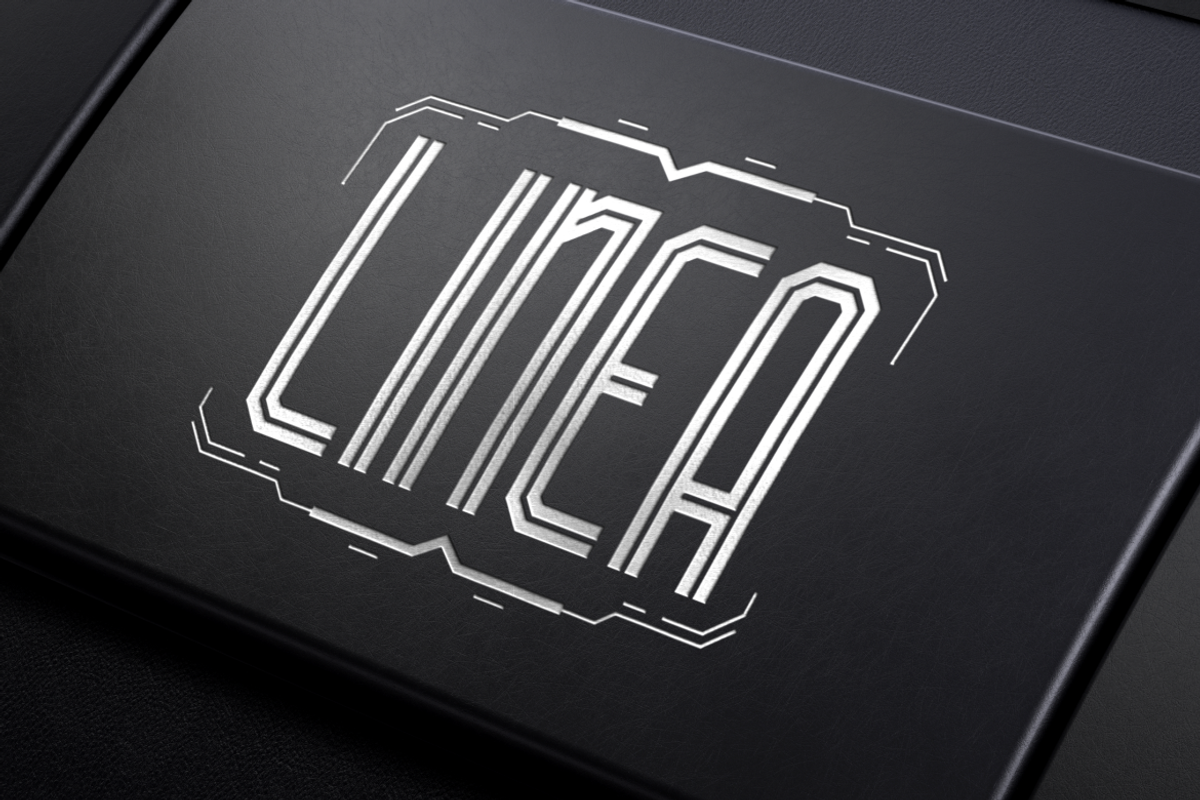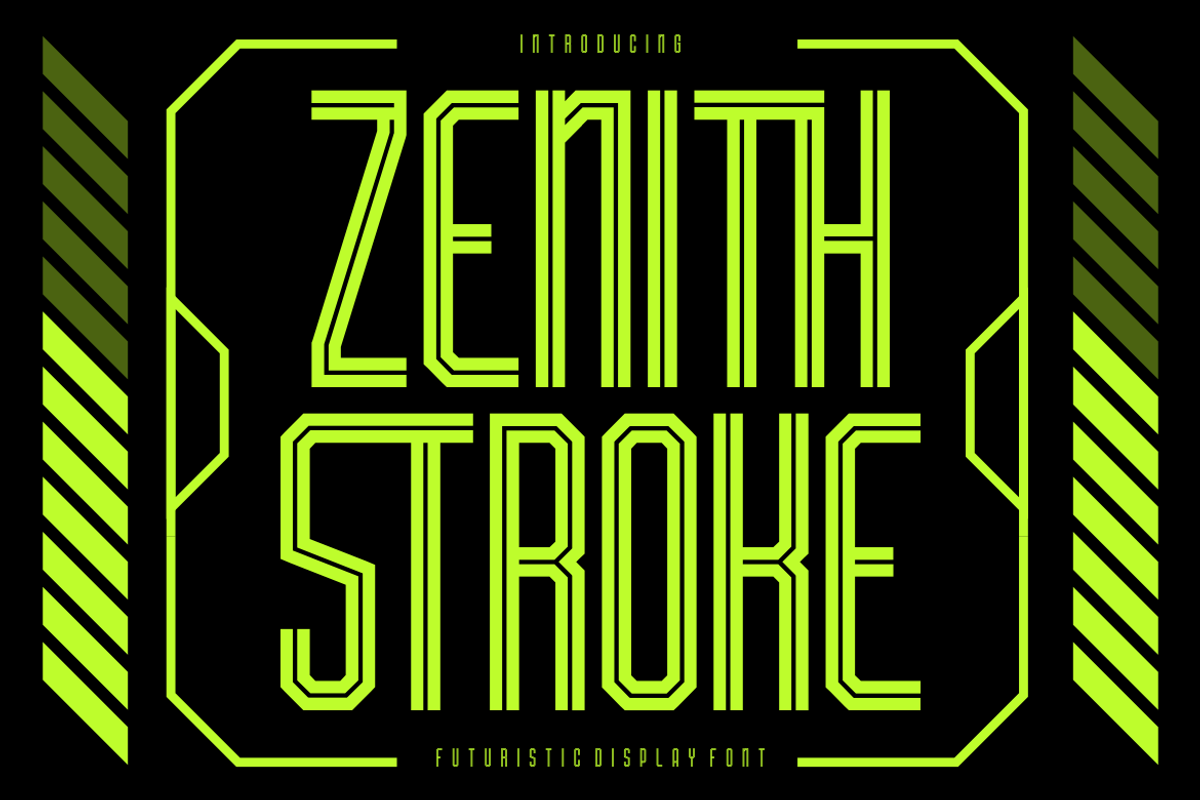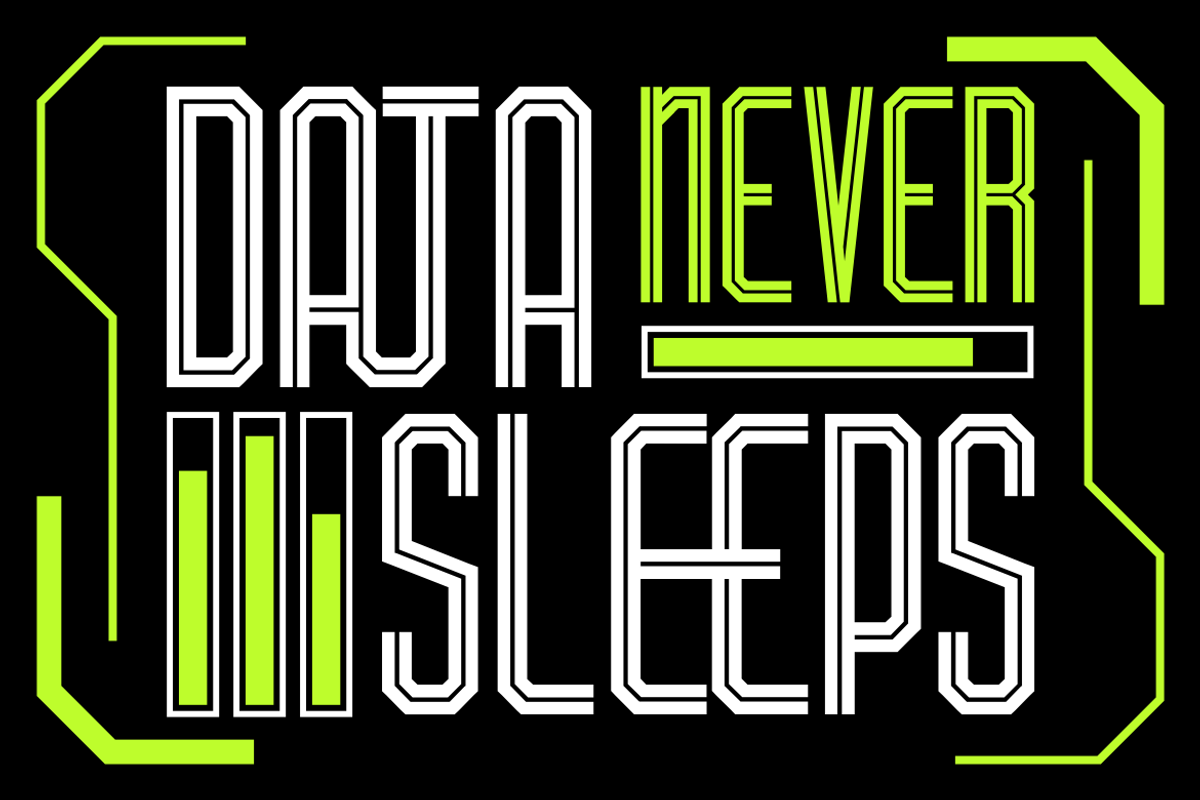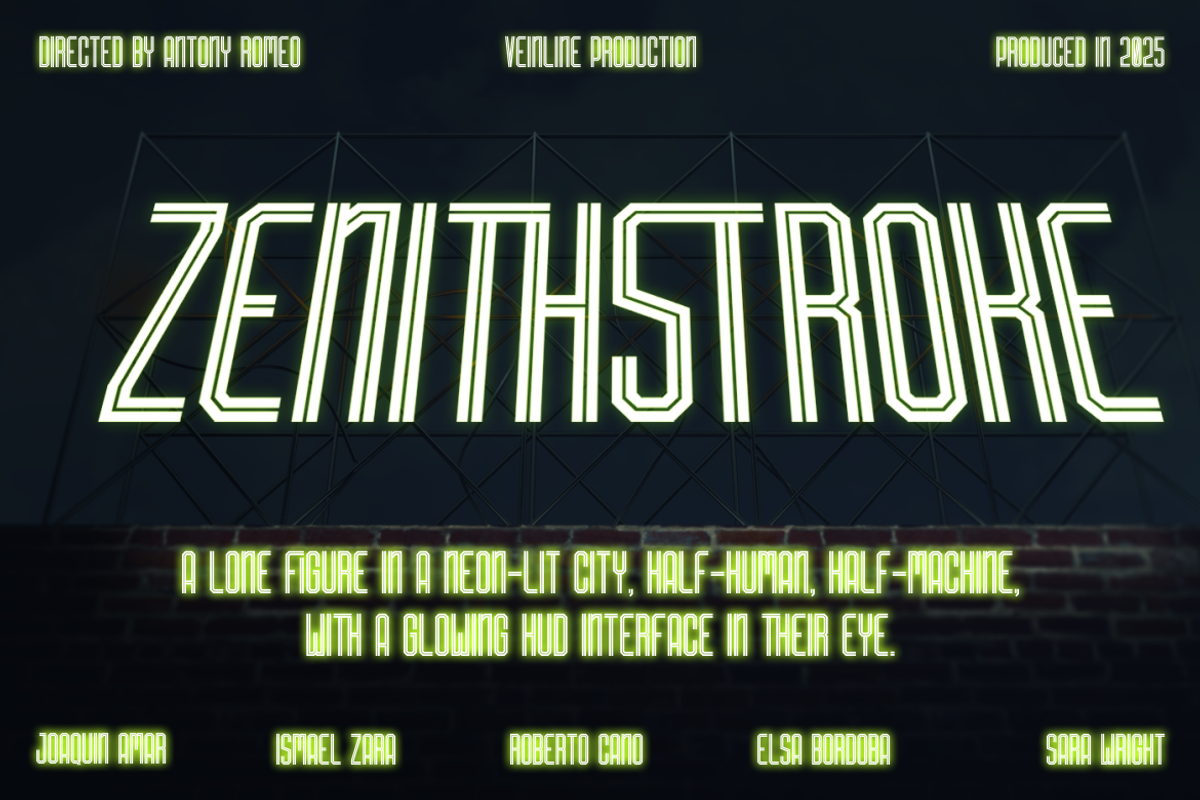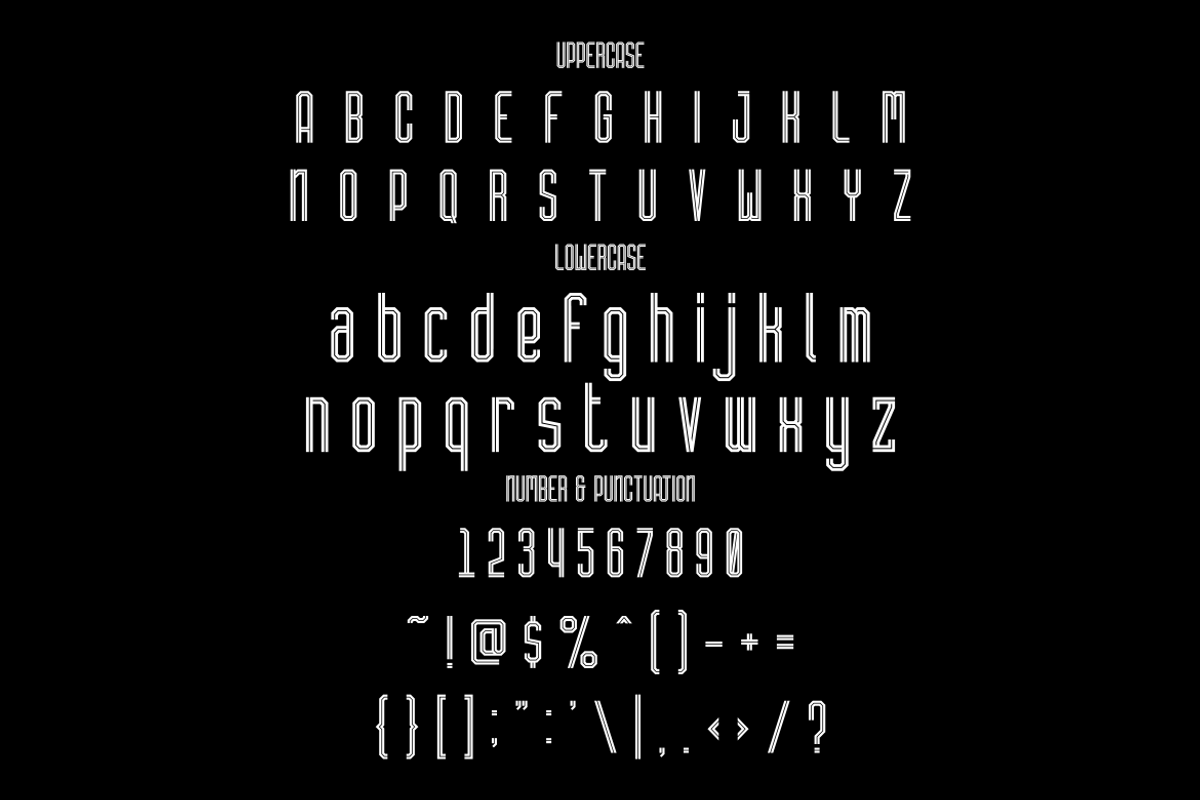
Zenith Stroke - Futuristic Display
Introducing Zenith Stroke - Futuristic Display Font, a cutting-edge typeface designed to bring a sleek, modern, and high-tech aesthetic to your designs. This font features sharp, geometric lines and a structured yet fluid design, making it perfect for sci-fi themes, technology branding, and digital interfaces. With its linear stroke style, Zenith Stroke exudes a futuristic, cyberpunk-inspired look, ideal for logos, gaming titles, space-themed posters, and AI-driven projects. The clean, neon-like aesthetic combined with a minimalist, modern feel makes it versatile for both digital and print applications. The font’s bold, yet elegantly spaced letterforms create a visually dynamic impact, ensuring readability while maintaining a unique futuristic identity.
Zenith Stroke is perfect for branding, product packaging, sci-fi movie titles, tech startups, esports, and cyber-inspired designs. The high-tech, aerodynamic structure of the font makes it suitable for projects that require a sleek, innovative, and modern touch. Whether you’re working on a futuristic user interface, digital advertisements, or creative typography projects, this font will instantly elevate your design. The glowing effect on a dark background enhances its futuristic and space-age appeal, making it a top choice for those looking to create an immersive digital experience. If you're seeking a bold, stylish, and futuristic display font, Zenith Stroke is the perfect addition to your creative arsenal.